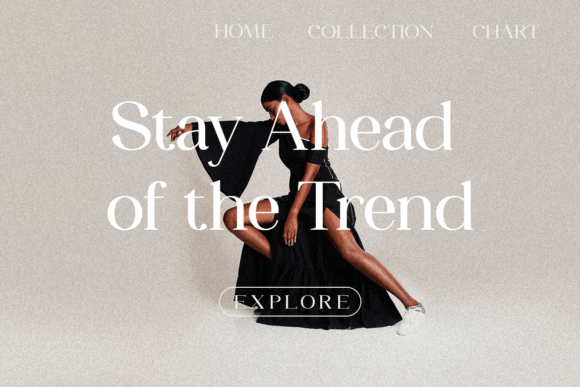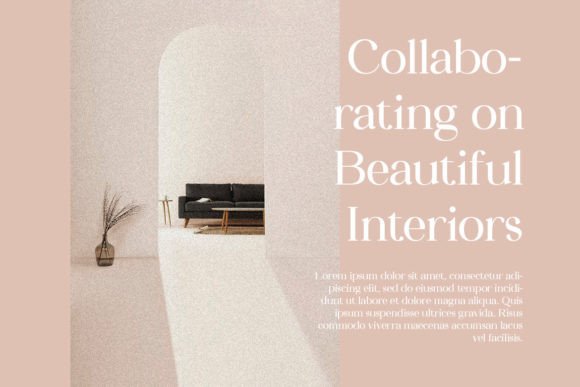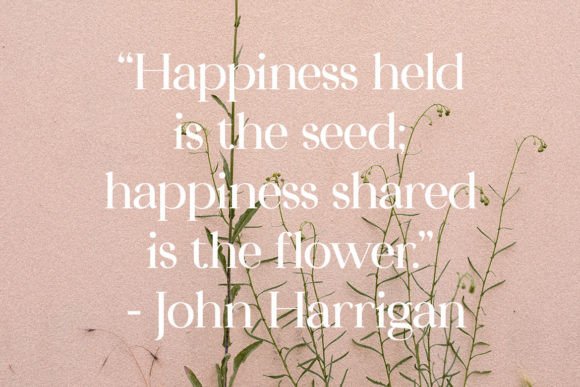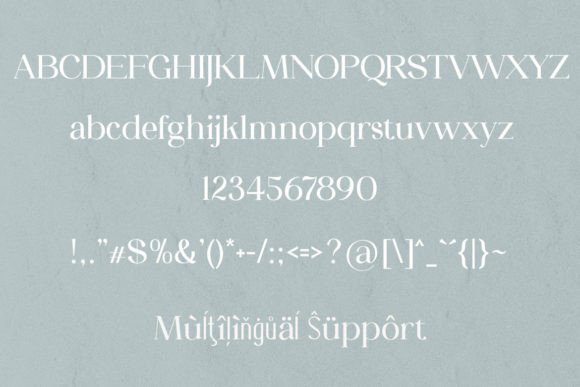
Introducing Camellia Font: The Ultimate Modern Typeface for Designers and Crafters
Are you on the hunt for a font that exudes modernity, sophistication, and versatility? Look no further than Camellia Font, a stunning typeface that is taking the design world by storm. With its clean lines, sharp edges, and exceptional flexibility, Camellia is the perfect choice for a wide range of design projects, from logos and weddings to invitations, quotes, advertisements, and more.
What Makes Camellia Font So Special?
Camellia Font is a modern typeface that boasts a unique combination of clean lines and sharp edges, giving it a crisp, contemporary look that is sure to turn heads. Its sleek design makes it an extremely versatile font, suitable for use in a variety of contexts, from elegant wedding invitations to bold advertisements. Whether you’re a designer, crafter, or DIY enthusiast, Camellia Font is an excellent addition to your typography toolkit.
Key Features of Camellia Font
• Clean Lines and Sharp Edges: Camellia Font’s modern design is characterized by clean lines and sharp edges, giving it a fresh, contemporary look.
• Versatility: Camellia is an extremely versatile font, suitable for use in a wide range of design projects, from logos and branding to weddings, invitations, and more.
• Elegant and Sophisticated: Camellia Font exudes elegance and sophistication, making it perfect for high-end designs, such as luxury brand logos and wedding invitations.
• Easy to Read: Despite its modern design, Camellia Font is easy to read, even at small sizes, making it suitable for use in body text and captions.
Use Cases for Camellia Font
So, what can you use Camellia Font for? The possibilities are endless! Here are some ideas to get you started:
• Logos and Branding: Create a stunning logo for your business or brand with Camellia Font.
• Weddings and Invitations: Use Camellia Font to create beautiful wedding invitations, save-the-dates, and other stationery.
• Advertisements: Make your ads stand out with Camellia Font’s bold, modern design.
• Print and Magazines: Use Camellia Font in your print designs, such as magazines, brochures, and flyers.
• Quotes and Typography: Create stunning quote designs and typography projects with Camellia Font.
Tips for Using Camellia Font
To get the most out of Camellia Font, here are some tips to keep in mind:
• Experiment with Font Sizes: Camellia Font looks great at a range of font sizes, from small captions to large headlines.
• Play with Color: Try pairing Camellia Font with different colors to create unique and eye-catching designs.
• Mix and Match with Other Fonts: Camellia Font pairs well with a range of other fonts, so don’t be afraid to experiment with different combinations.
In conclusion, Camellia Font is a modern typeface that is sure to elevate your designs to the next level. With its clean lines, sharp edges, and exceptional versatility, Camellia is the perfect choice for designers, crafters, and DIY enthusiasts alike. Whether you’re creating logos, weddings, invitations, quotes, advertisements, or more, Camellia Font is an excellent addition to your typography toolkit.